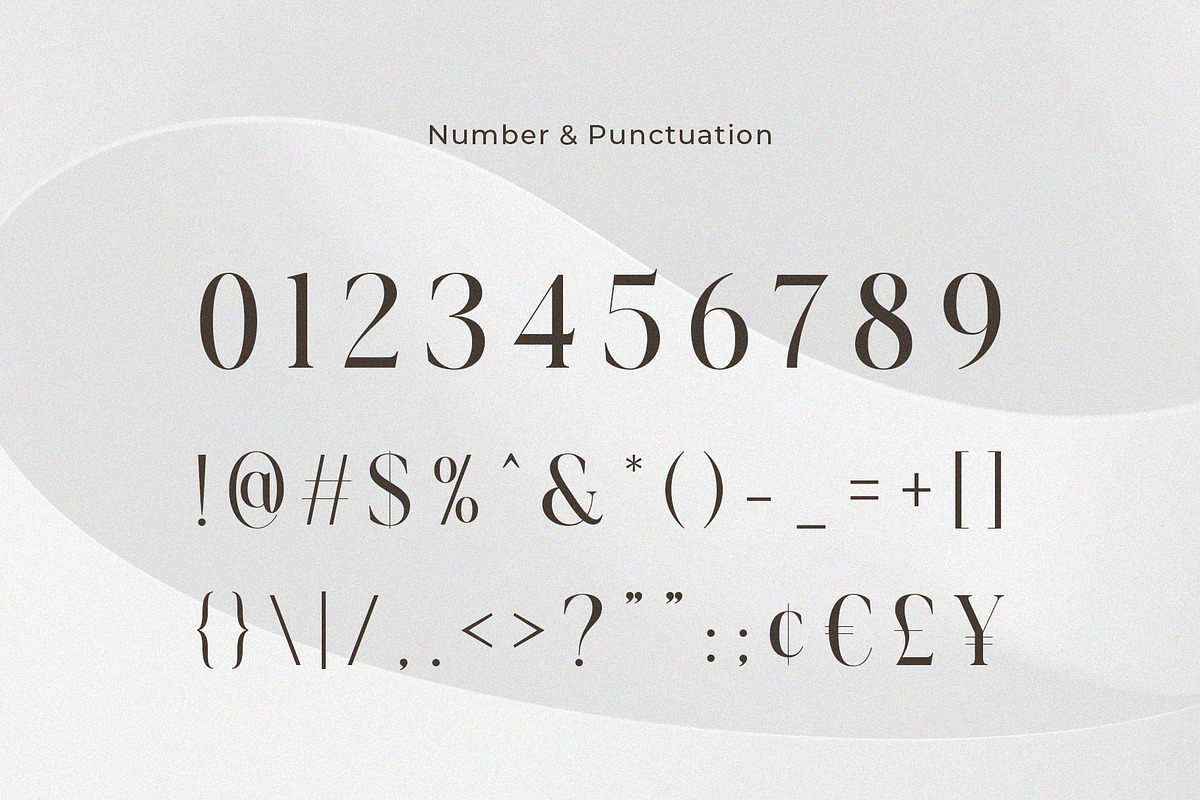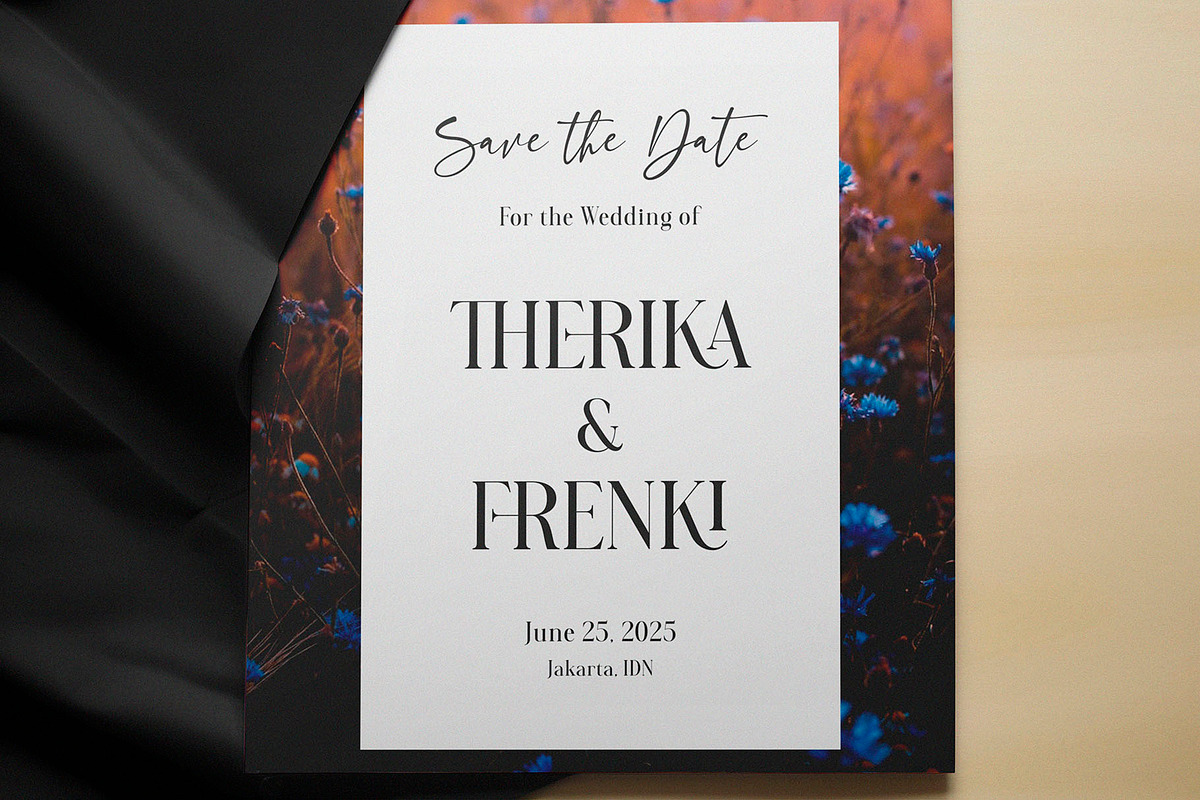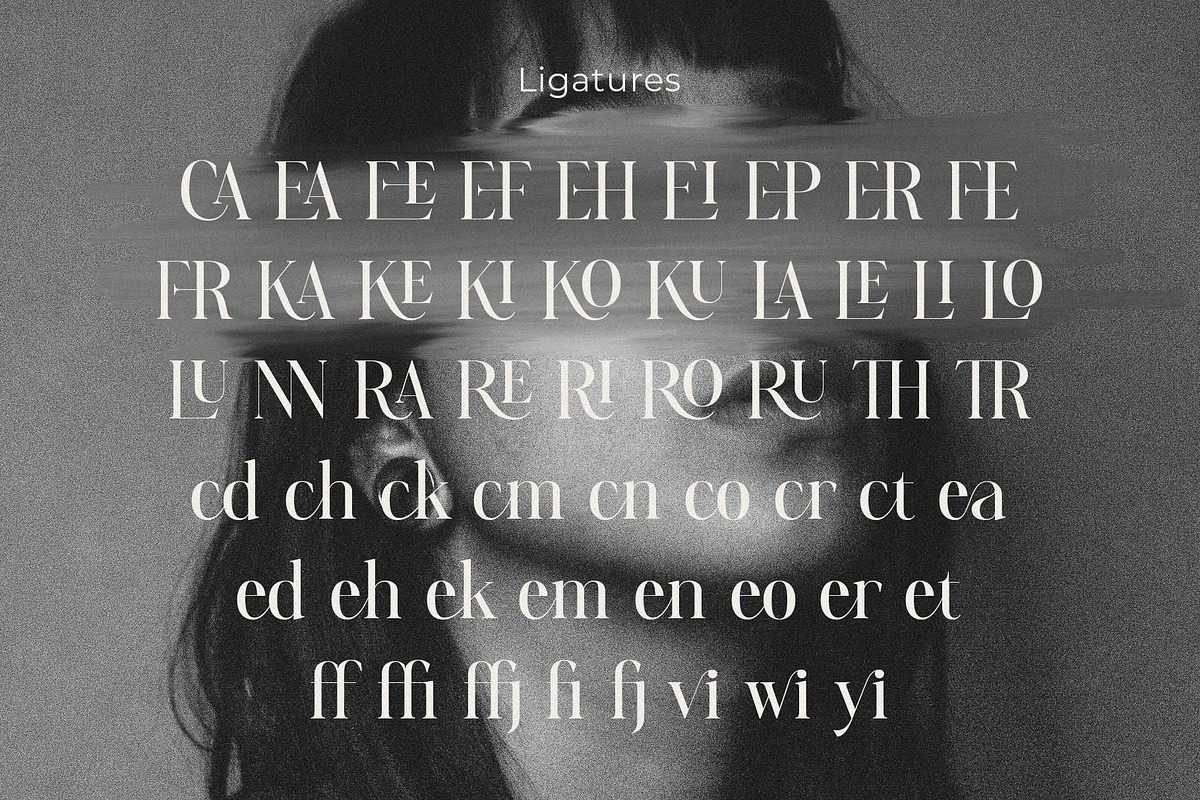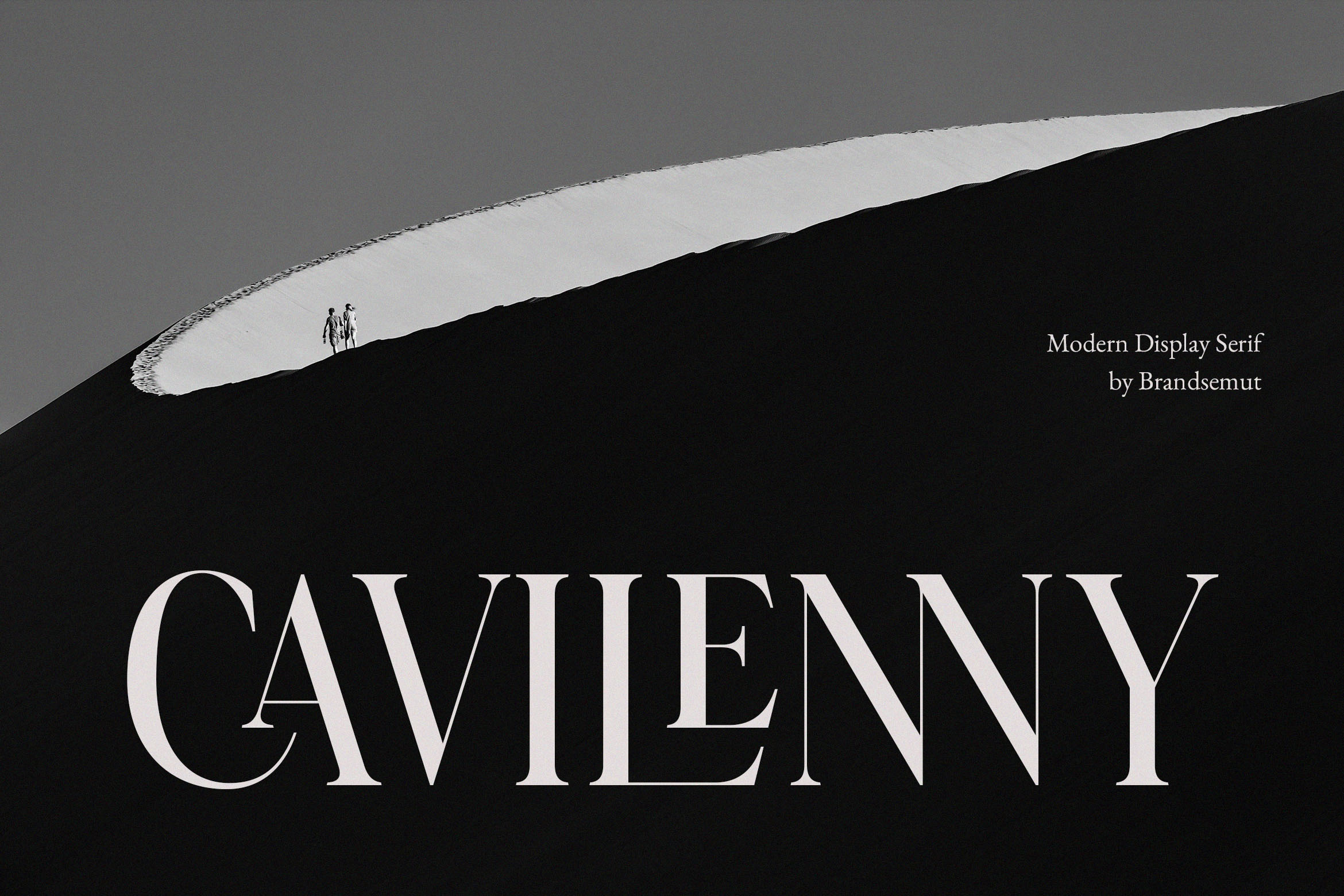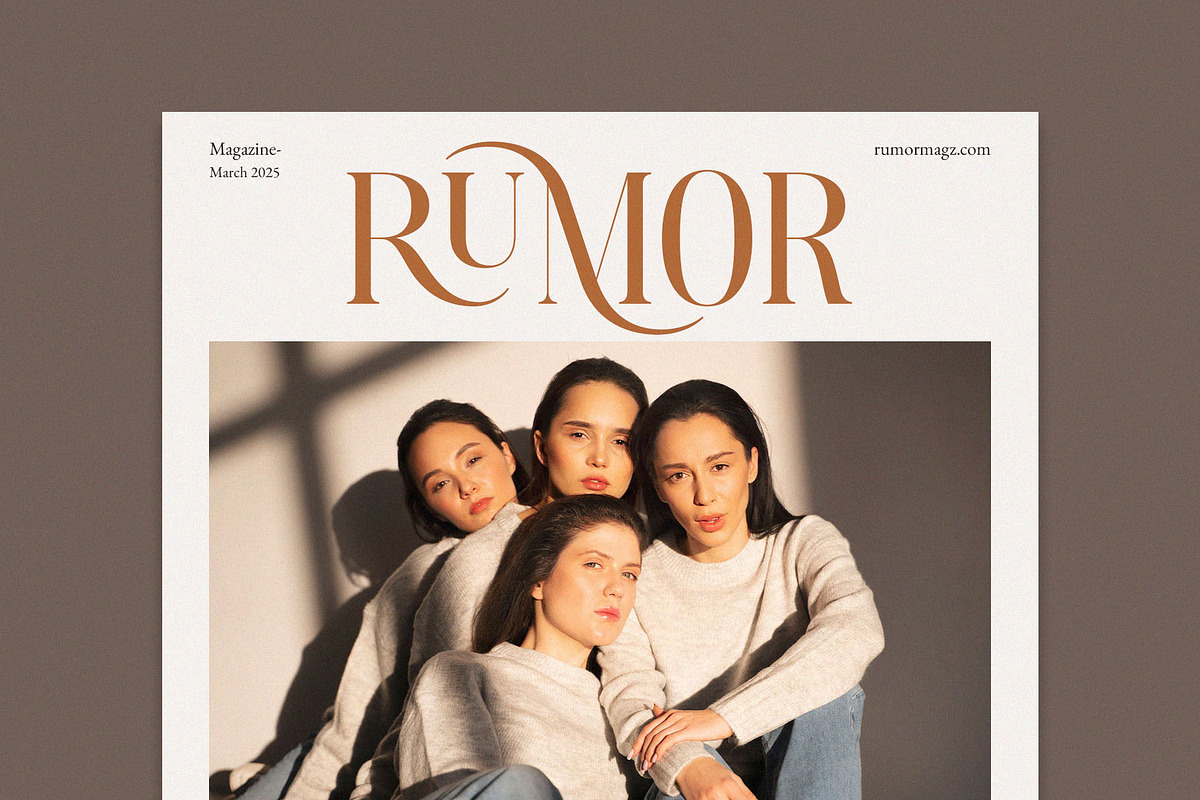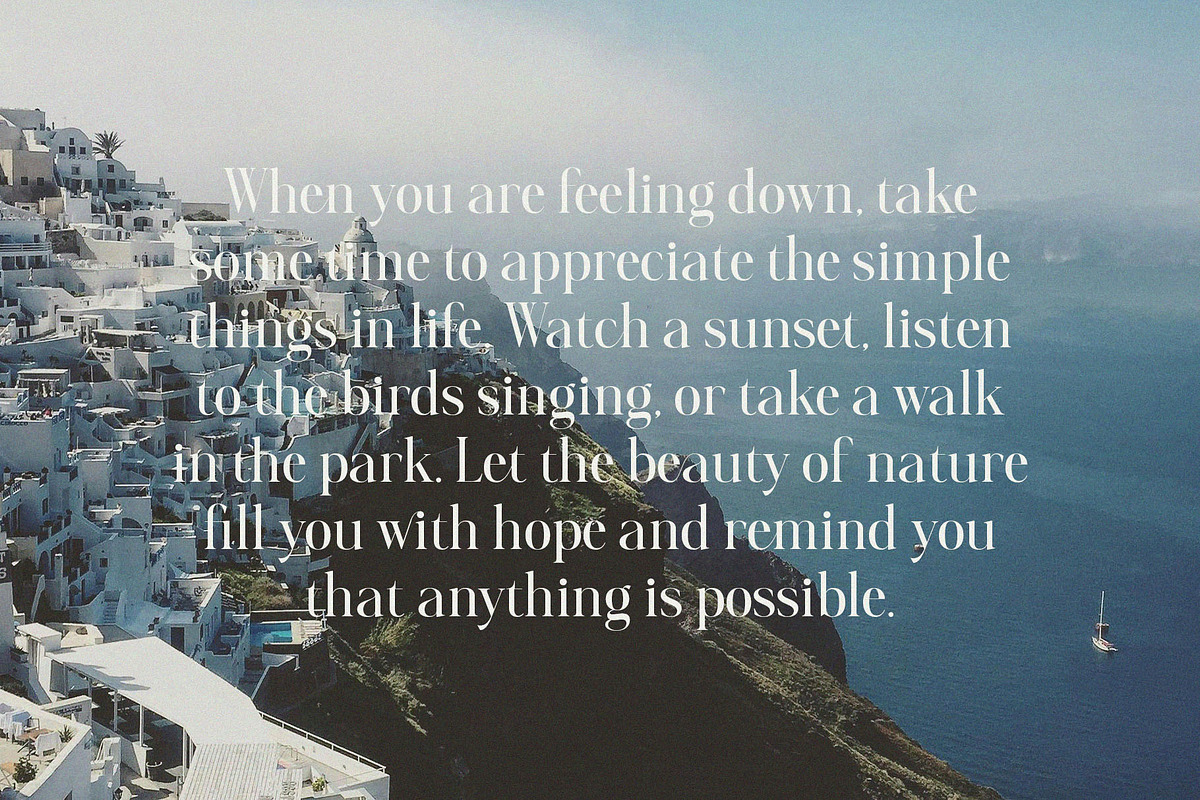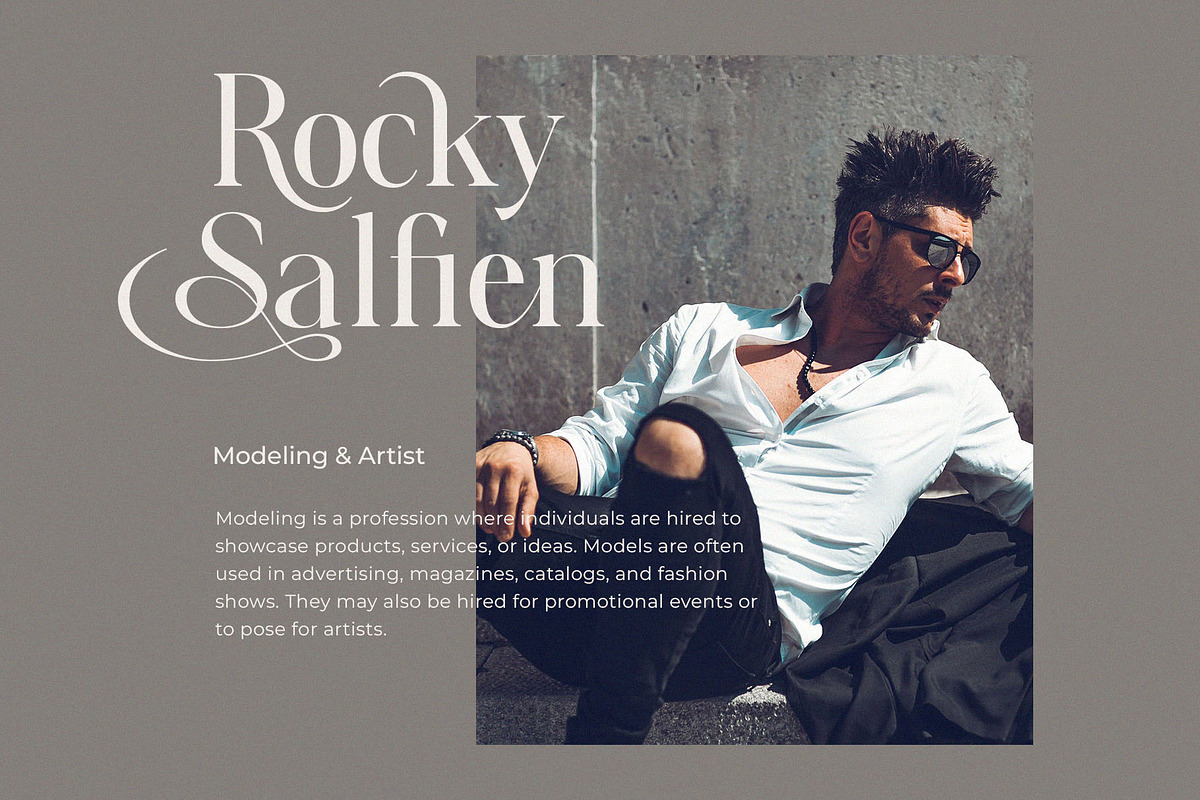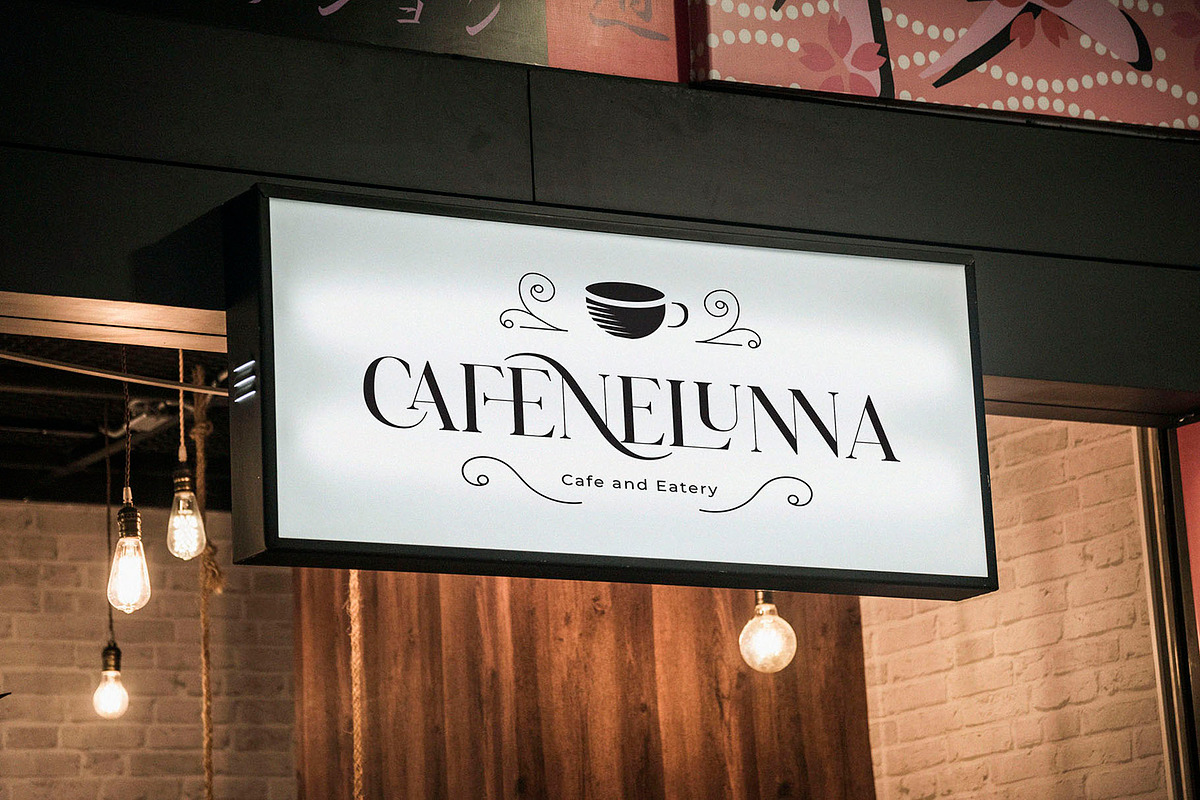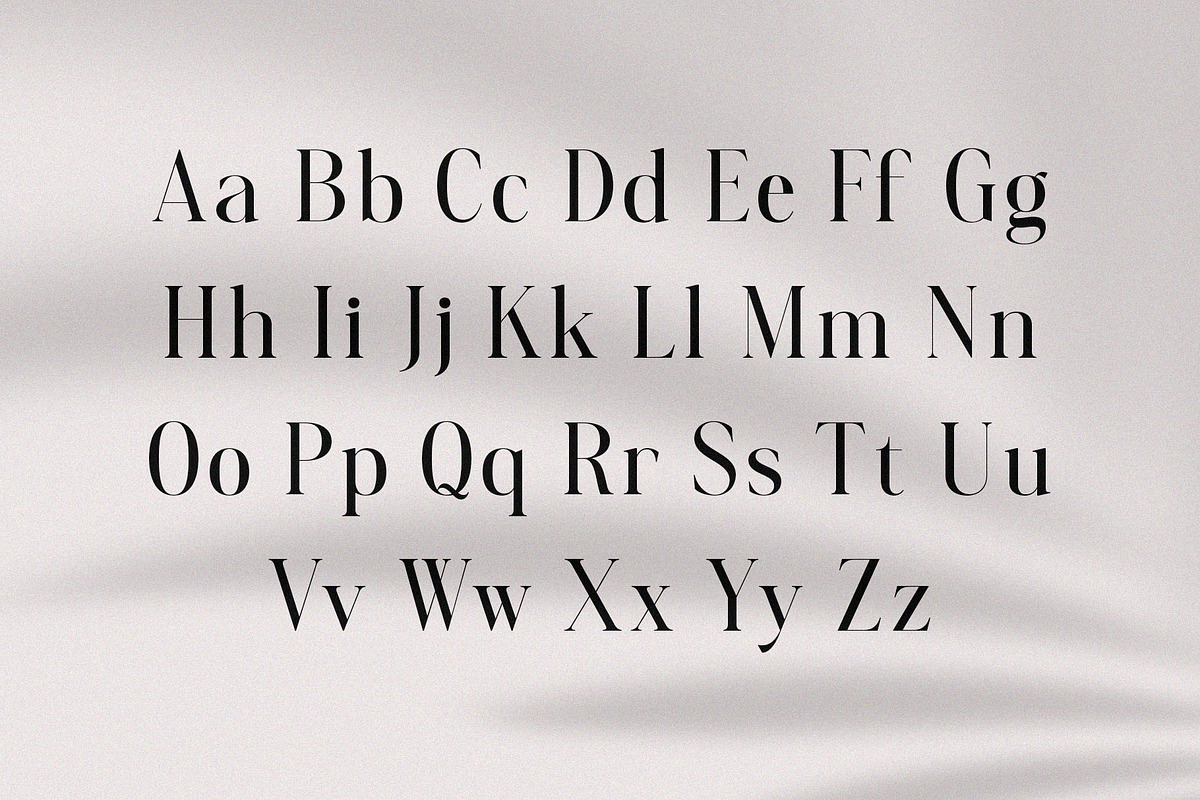
Cavilenny -Modern Display Serif Font
Introducing Cavilenny Modern Display Serif Font. Cavilenny is a modern and classy typeface, best used as a display for headings, logos, branding, magazines, product packaging and invitations. Cavilenny come with clean lines and smooth curves give any project an extra touch of class.